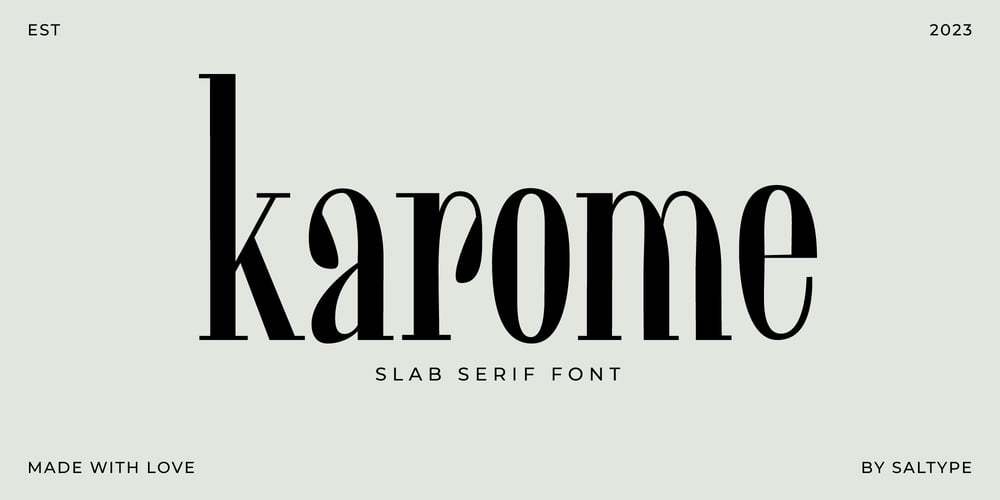
Karome Font Family was designed by SalType Foundry and published by SalType Foundry. Karome contains 1 styles and family package options. Karome is a beautiful slab serif font . This font perfect for branding, Headlines, logos, invitation, watermark and so much more.Karome comes with Regular style. Uppercase & lowercase letters, numbers, punctuation, and multilingual support.If you have any questions, please feel free to get in touch.Thank you